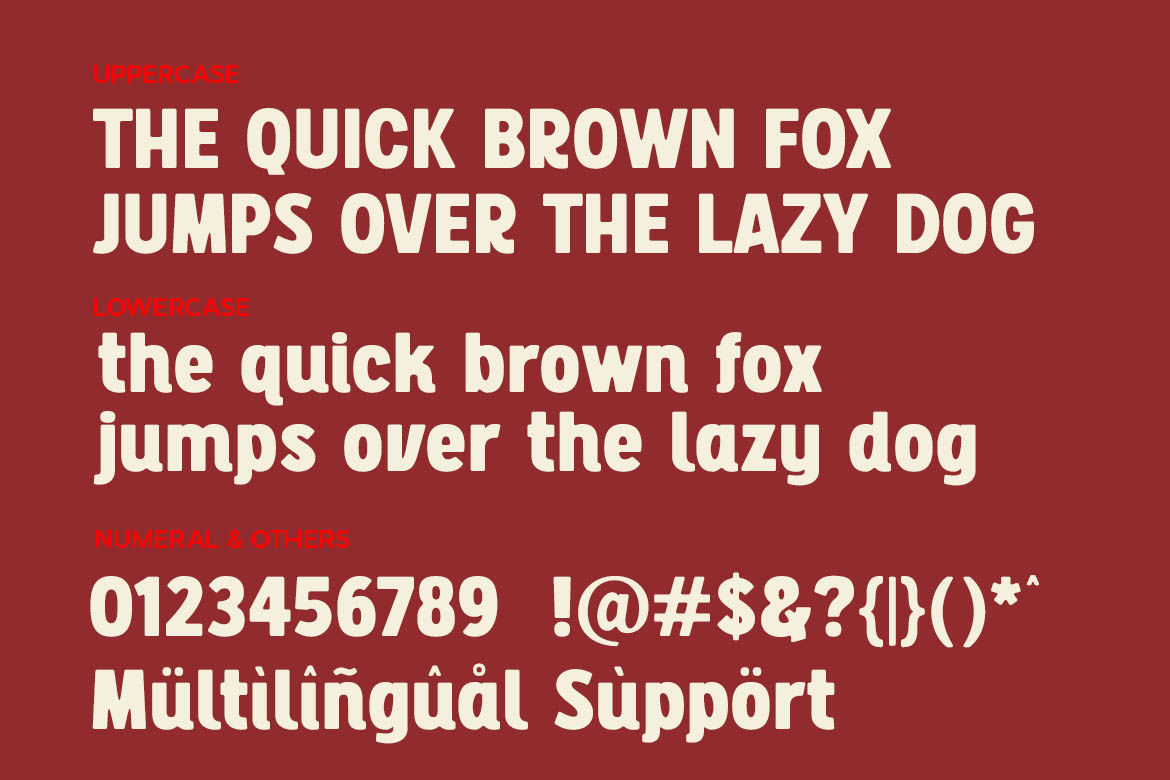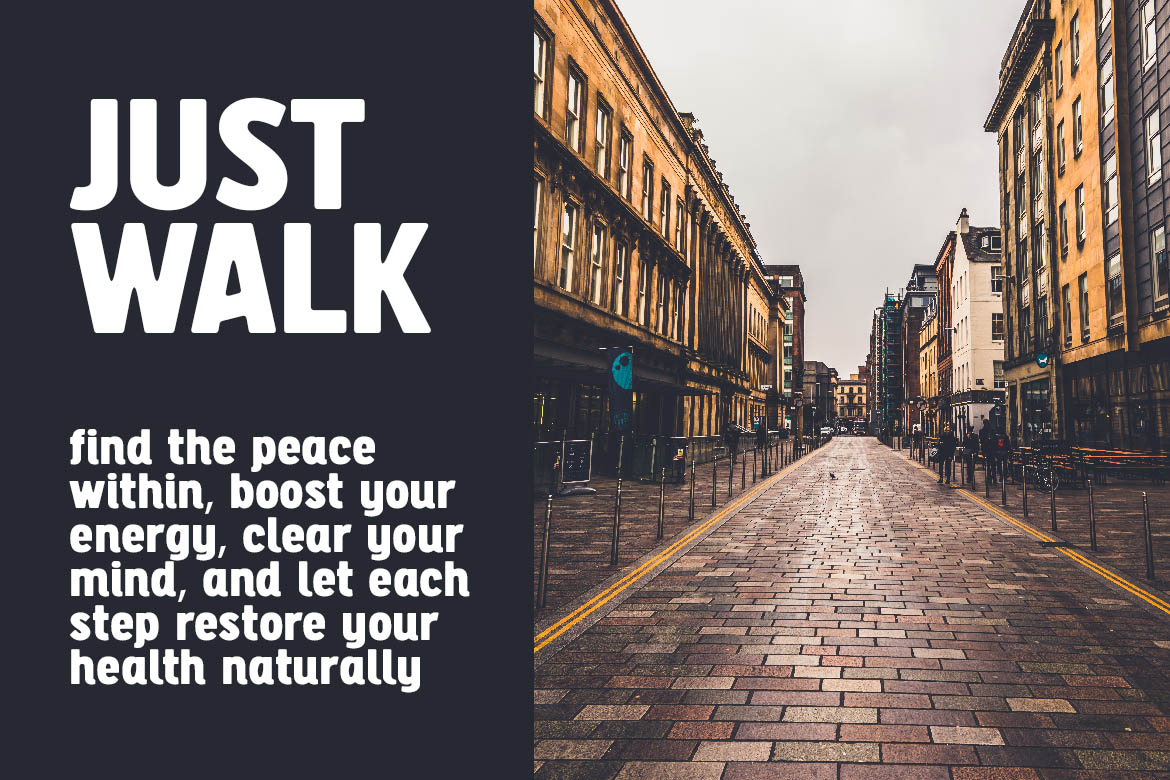
Alvin - Modern Logo Font
Alvin is a bold sans-serif display font with a clean, modern attitude. Its thick, geometric letterforms make it ideal for strong headlines, tech branding, startup logos, digital posters, and attention-grabbing social media visuals. With a sleek yet slightly playful structure, Alvin strikes the perfect balance between professional and approachable.